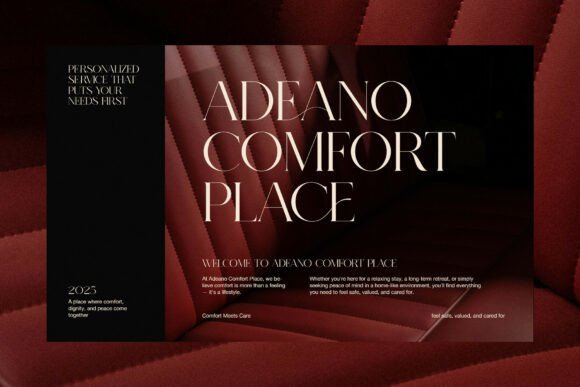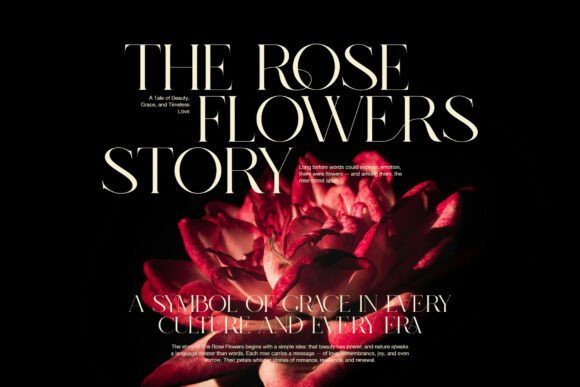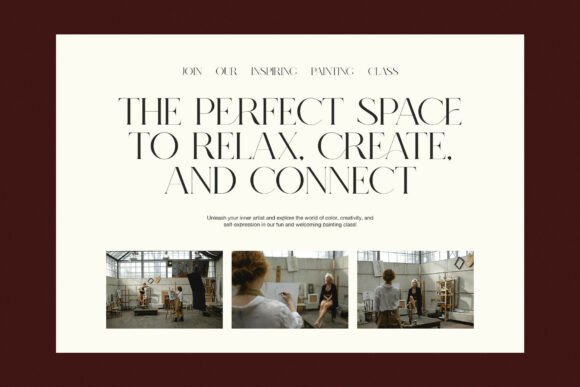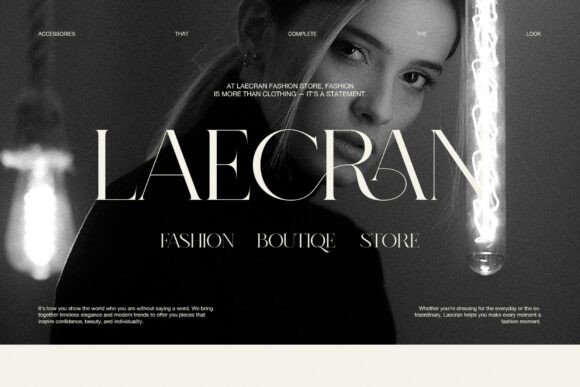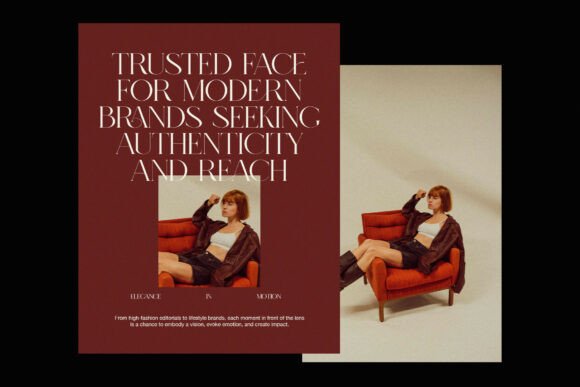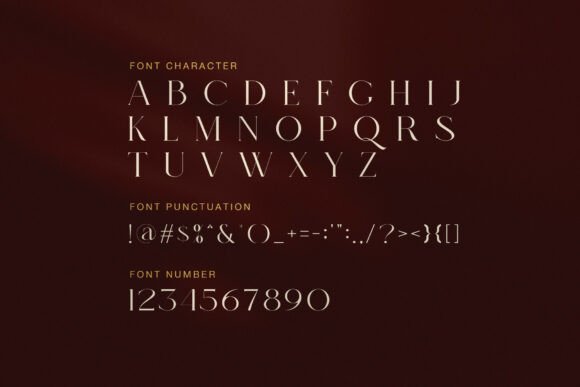
Introducing Casero Font: Elevate Your Designs with Timeless Elegance
In the world of typography, a font can make or break a design. For those seeking to infuse their projects with luxury and sophistication, the Casero font is an exceptional choice. This stunning serif font seamlessly blends classic elegance with modern refinement, making it perfect for high-end branding, editorials, wedding invitations, and upscale packaging.
The Essence of Casero Font
Casero is more than just a font; it’s a statement of style and sophistication. Its graceful curves and refined serifs are meticulously crafted to bring a sense of luxury and class to any design. Whether you’re working on a high-end brand identity, a wedding invitation, or a premium product package, Casero ensures that your work stands out with elegance and flair.
Key Features of Casero Font
• Luxurious Serif Design: Casero boasts a serif design that exudes timeless elegance and sophistication, perfect for projects that demand a high-end feel.
• Stylish Alternates and Artistic Letterforms: The font includes stylish alternates and artistic letterforms, allowing designers to add a premium touch to their work.
• PUA-Encoded for Easy Access: Casero is PUA-encoded, ensuring effortless access to all glyphs, swashes, and alternate characters. This feature makes customization a breeze, allowing designers to bring their unique vision to life.
• Versatile and Adaptable: From high-end branding and editorials to wedding invitations and upscale packaging, Casero’s versatility makes it suitable for a wide range of design projects.
Applications of Casero Font
The versatility of Casero font makes it an excellent choice for various design applications:
• High-End Branding: Use Casero to create a luxurious brand identity that resonates with elegance and sophistication.
• Editorials and Magazines: Add a touch of class to your editorial designs with Casero’s refined and elegant typography.
• Wedding Invitations: Make your wedding invitations truly special with Casero’s beautiful and sophisticated letterforms.
• Upscale Packaging: Elevate your product packaging with Casero’s luxurious and refined design, perfect for high-end products.
Why Choose Casero Font?
In a market flooded with fonts, Casero stands out for several reasons:
• Unique Design: Casero’s blend of classic elegance and modern sophistication sets it apart from other serif fonts.
• High Customizability: With its PUA encoding, designers have easy access to a wide range of glyphs, swashes, and alternates, making it easy to customize and adapt to specific design needs.
• Quality and Craftsmanship: The attention to detail in Casero’s design ensures a high level of quality, making it suitable for professional and personal projects that demand the best.
Font Name Casero Font
Author Graphicxell
Casero font is a luxurious serif font that brings a new level of elegance and sophistication to the world of typography. Its timeless design, combined with modern flair, makes it an ideal choice for designers and crafters looking to elevate their projects. With its versatile applications, stylish alternates, and PUA encoding for easy customization, Casero is set to become a go-to font for high-end designs. Whether you’re working on branding, editorials, wedding invitations, or upscale packaging, Casero ensures that your work stands out with class and elegance.